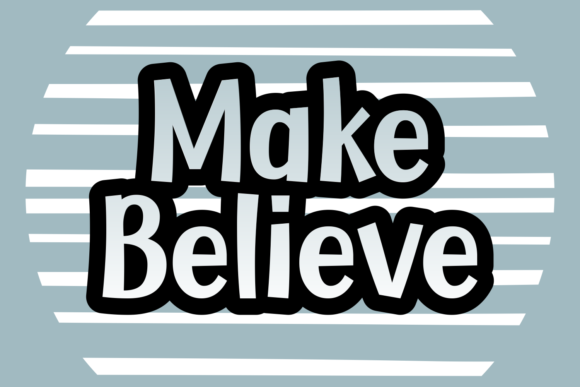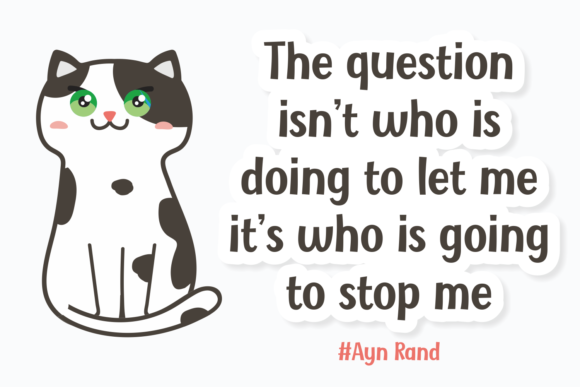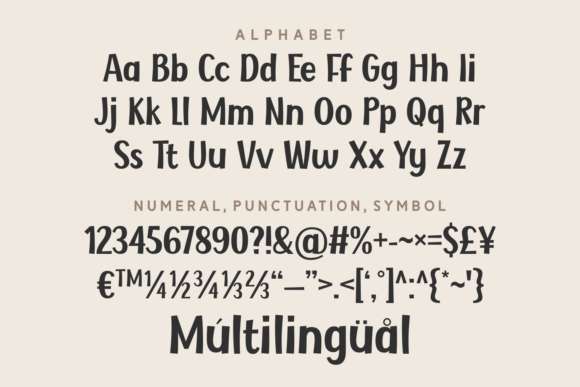
Introducing Floren Cutes Font: The Perfect Modern Display Font for Your Creative Projects
Are you a designer, crafter, or creative entrepreneur looking for a modern display font that can elevate your visual projects? Look no further than Floren Cutes Font! This stunning font is designed to add a touch of elegance and sophistication to a wide range of products, from invitations and product packaging to quotes, product design, labels, photography, watermarks, logos, and branding.
What Makes Floren Cutes Font So Special?
Floren Cutes Font is a carefully crafted modern display font that boasts a unique and stylish aesthetic. Its clean lines, subtle curves, and balanced proportions make it perfect for use in a variety of creative projects. Whether you’re looking to create eye-catching invitations, design beautiful product packaging, or add a touch of personality to your brand, Floren Cutes Font is the perfect choice.
Key Features of Floren Cutes Font
• Modern and stylish design: Floren Cutes Font features a sleek and contemporary design that’s perfect for modern brands and creative projects.
• Highly versatile: This font is suitable for use in a wide range of products, from invitations and packaging to logos, branding, and more.
• Elegant and sophisticated: Floren Cutes Font adds a touch of elegance and sophistication to any project, making it perfect for high-end brands and luxury products.
• Easy to read: Despite its stylish design, Floren Cutes Font is highly legible and easy to read, making it perfect for use in body text and other applications.
Use Cases for Floren Cutes Font
Floren Cutes Font is an incredibly versatile font that can be used in a wide range of creative projects. Here are just a few examples of how you can use this amazing font:
• Invitations: Create beautiful and elegant invitations for weddings, parties, and other special events.
• Product packaging: Add a touch of sophistication to your product packaging and make your brand stand out.
• Quotes and typography: Use Floren Cutes Font to create stunning quotes and typography that will grab attention and inspire your audience.
• Product design: Add a touch of elegance to your product design and make your products more appealing to customers.
• Labels and branding: Use Floren Cutes Font to create custom labels and branding materials that reflect your brand’s personality and style.
• Photography and watermarks: Add a touch of sophistication to your photography and watermarks with this beautiful font.
• Logos and branding: Use Floren Cutes Font to create stunning logos and branding materials that will help your brand stand out.
Why Choose Floren Cutes Font?
There are many fonts to choose from, but Floren Cutes Font stands out from the crowd. Here are just a few reasons why you should choose this amazing font:
• Unique and stylish design: Floren Cutes Font features a unique and stylish design that’s sure to grab attention.
• Highly versatile: This font is suitable for use in a wide range of creative projects, making it a great value for designers and crafters.
• Exceptional value: With its high-quality design and versatility, Floren Cutes Font offers exceptional value for designers and crafters.
Floren Cutes Font is a modern display font that’s perfect for designers, crafters, and creative entrepreneurs. With its unique and stylish design, high versatility, and exceptional value, this font is a must-have for anyone looking to elevate their visual projects. Whether you’re creating invitations, product packaging, quotes, product design, labels, photography, watermarks, logos, or branding, Floren Cutes Font is the perfect choice. So why wait? Download Floren Cutes Font today and take your creative projects to the next level!